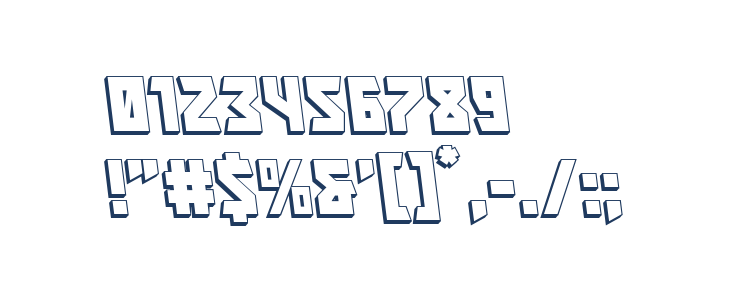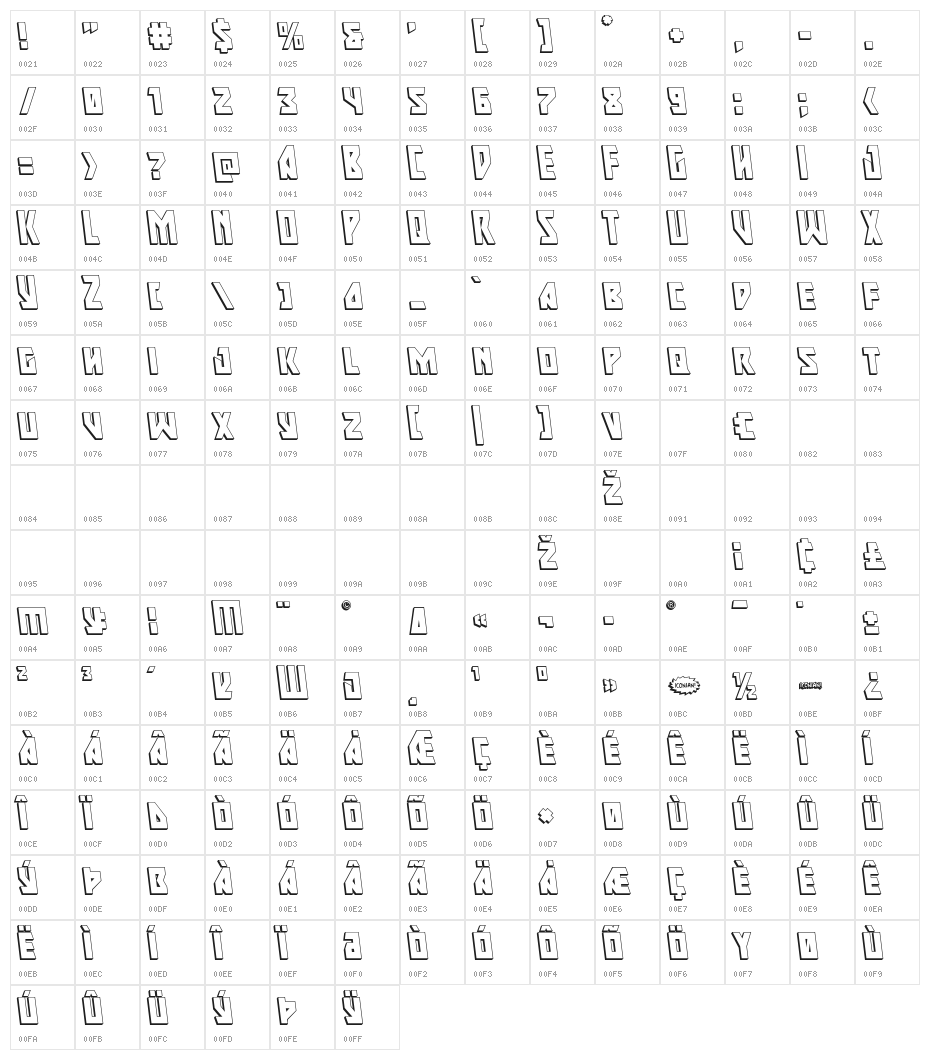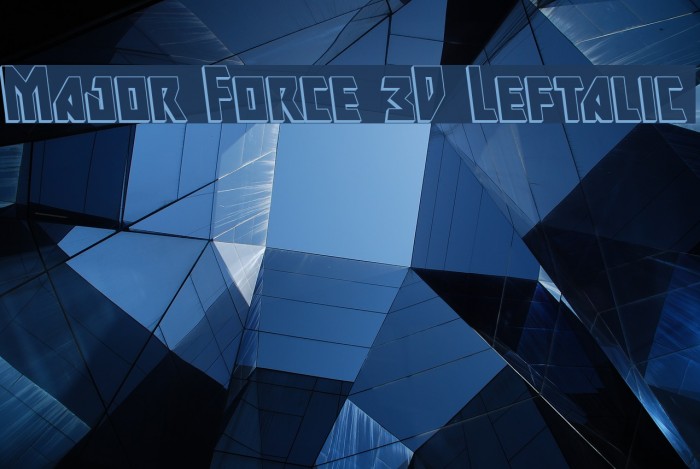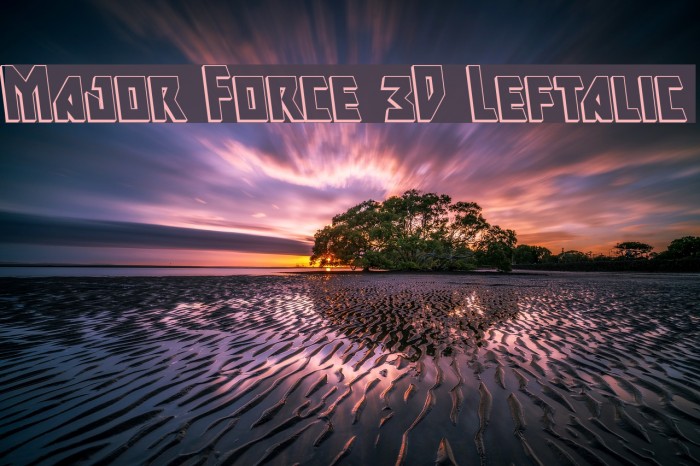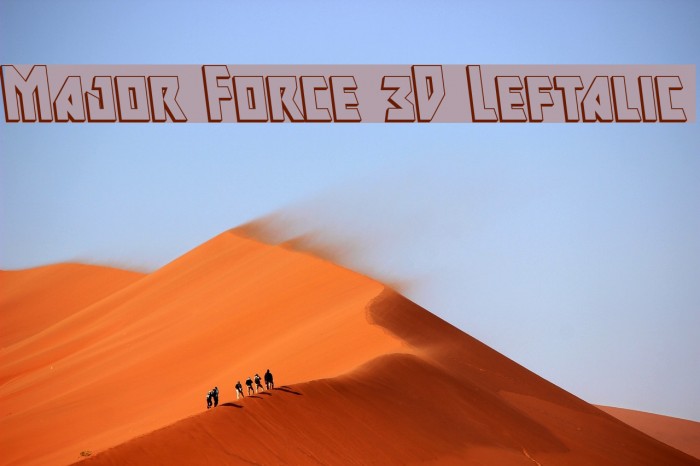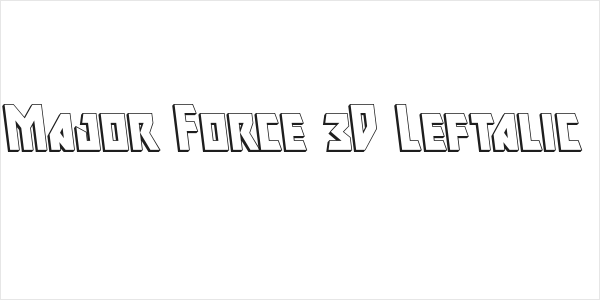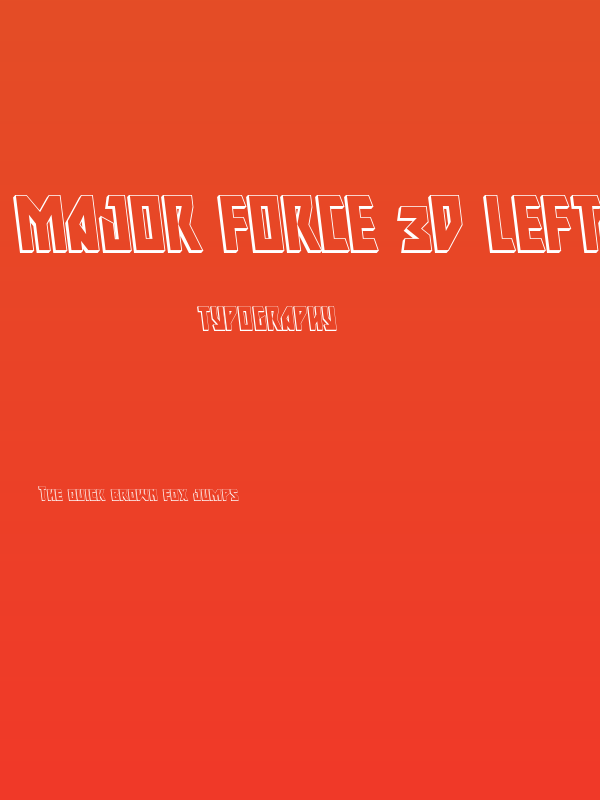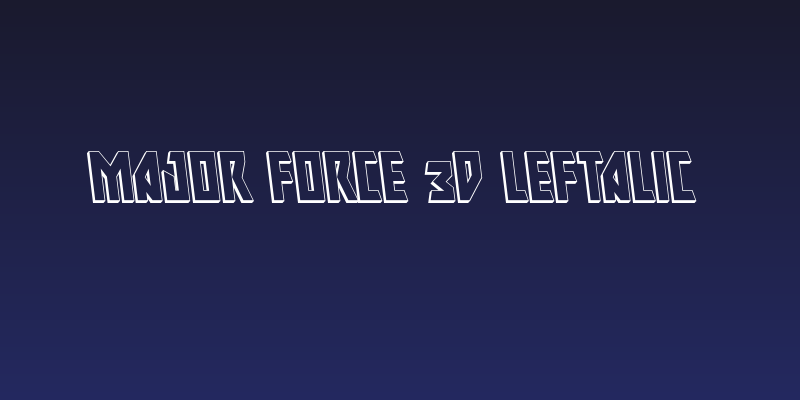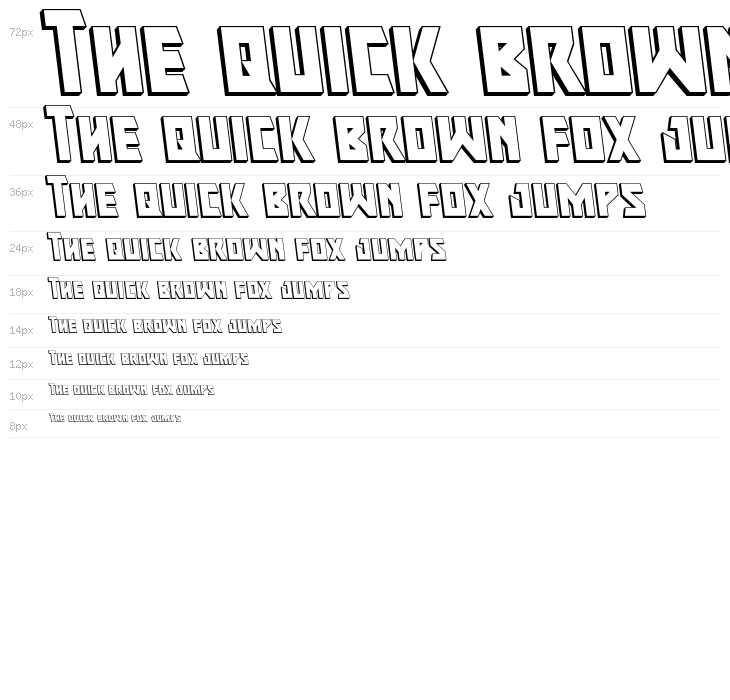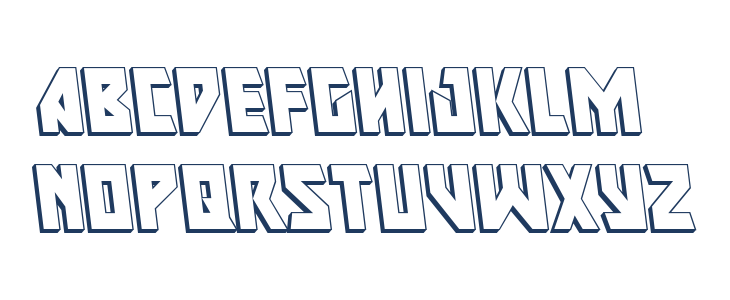
Major Force 3D Leftalic Font
Major Force 3D Leftalic Description
This font features a bold, three-dimensional design with a leftward slant, giving it a dynamic and impactful appearance. The characters are outlined with a thick black border, enhancing the 3D effect and making each letter stand out prominently. The style is geometric and angular, with sharp edges and a futuristic aesthetic. The uppercase and lowercase letters maintain a consistent style, while the numerals and special characters complement the overall design. This font is ideal for creating eye-catching headlines or logos that require a strong visual presence.
| Proposed Projects | Ideal for use in video game titles, movie posters, or any project needing a bold, futuristic look. |